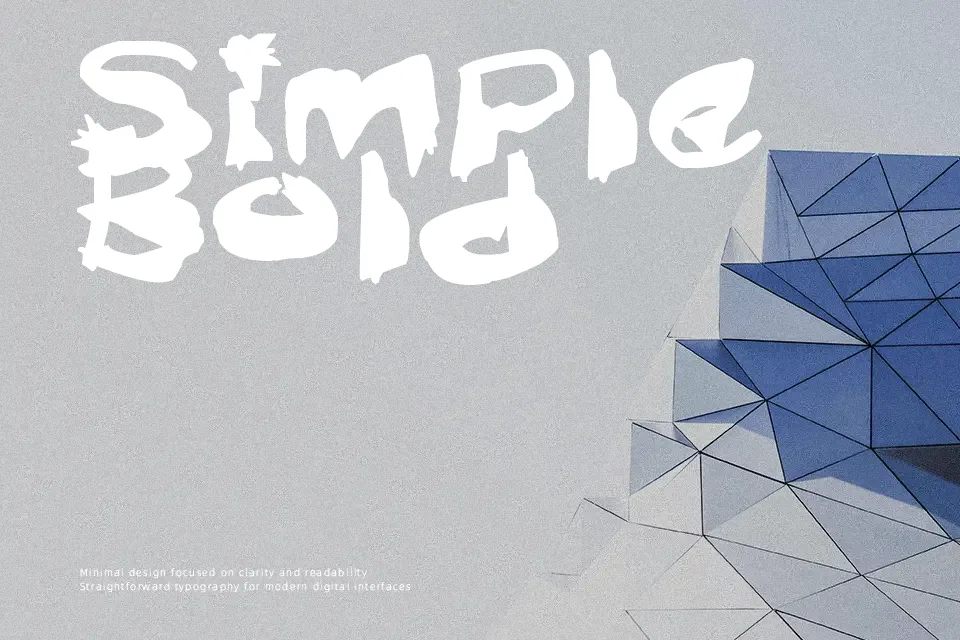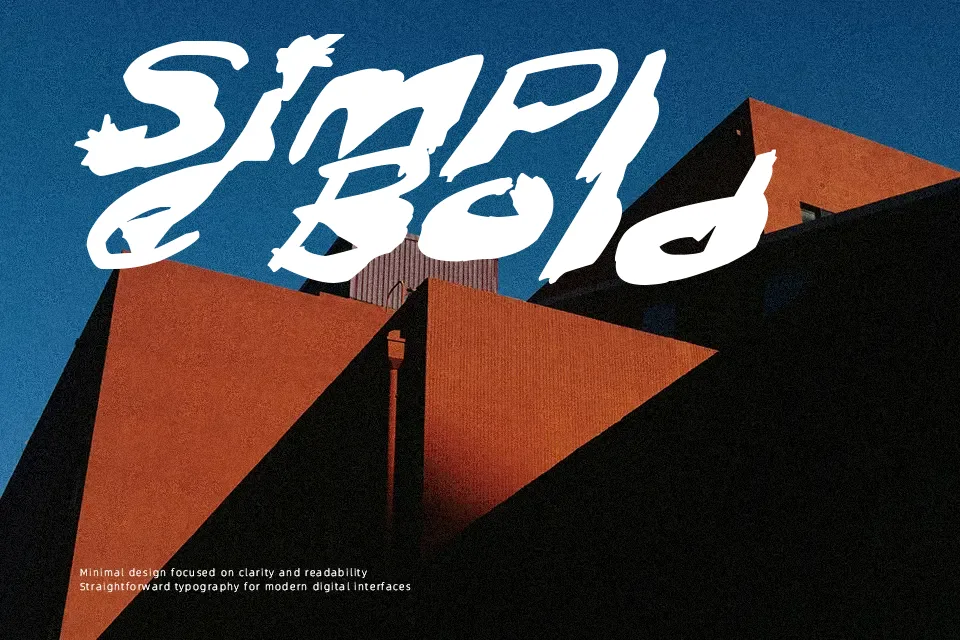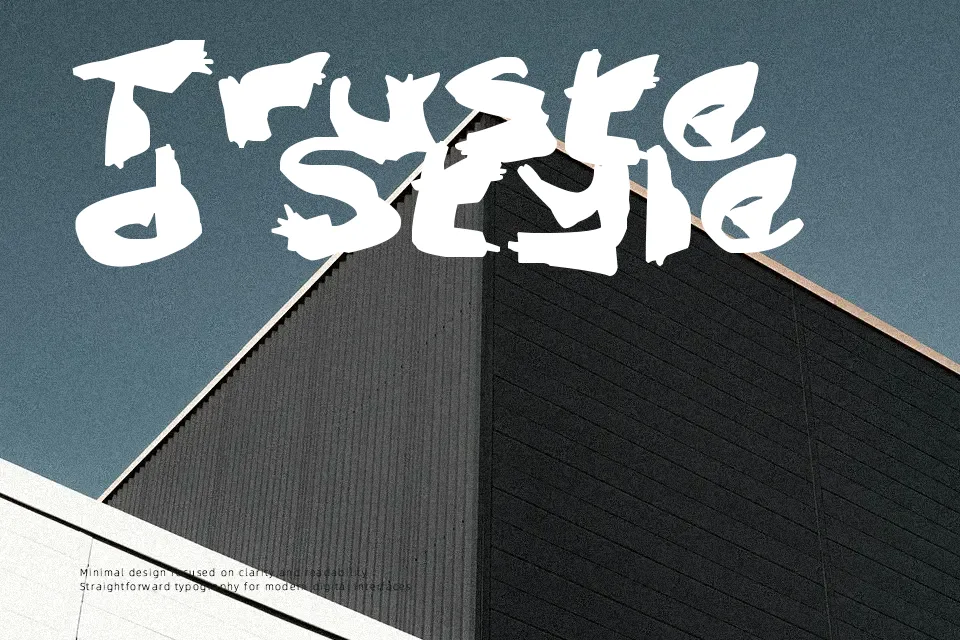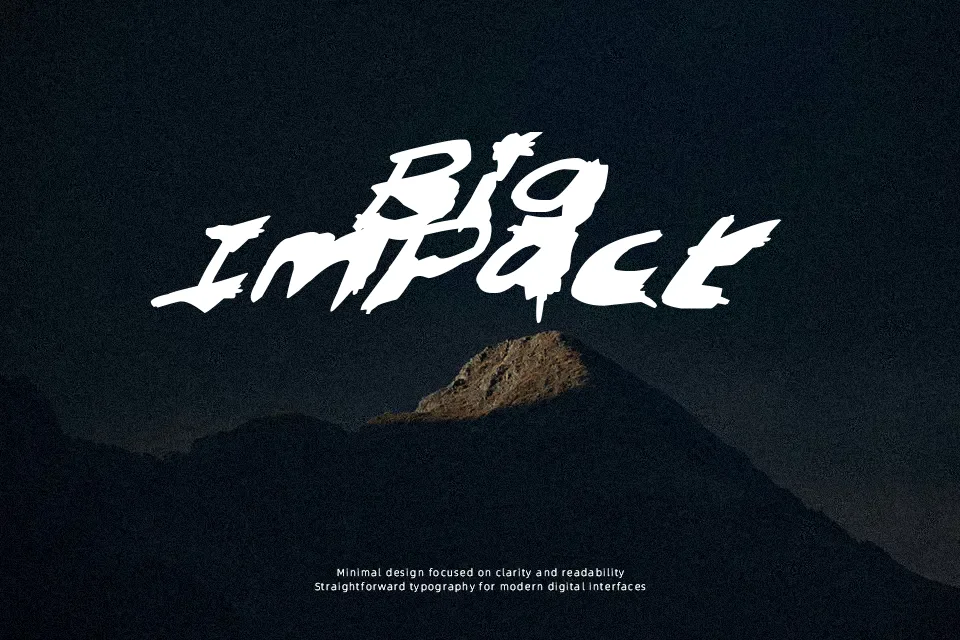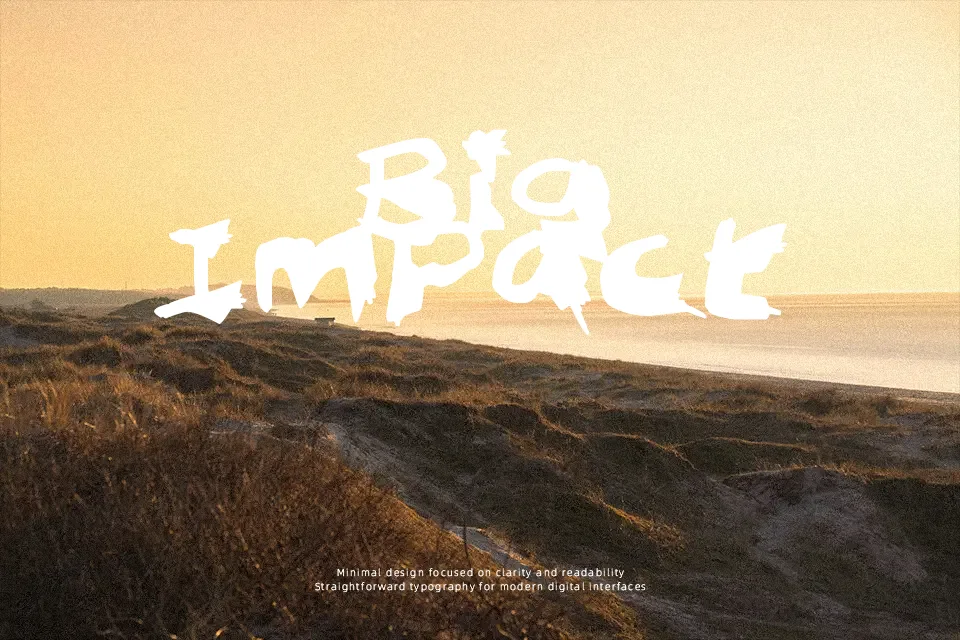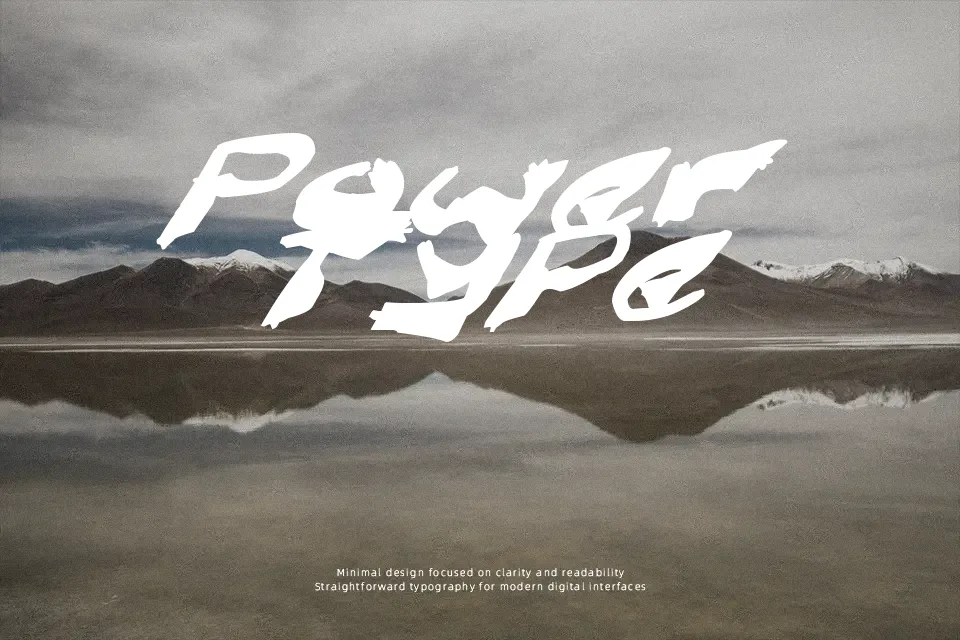
Nightmare Ink Font
Nightmare Ink Font commands immediate attention through irregular, distressed letterforms that evoke hurried scratches made with a worn nib. Heavy, uneven ink distribution creates strong visual contrast across individual glyphs, while organic terminals and jagged edges give the overall texture an unpolished, visceral quality. Spacing remains relatively tight to maintain punchy momentum across short headlines and display titles. However, the abrasive texture and inconsistent character density severely reduce legibility in continuous text blocks. The typeface excels when isolated in large-scale horror posters, dramatic book covers, or themed merchandise, though dense editorial environments quickly break down into visual noise.
Best For: horror movie title sequences, Halloween event flyers, heavy metal album covers, haunted attraction signage
Not Ideal For: long paragraph text, corporate reports, mobile app interface labels, dense editorial layouts
Perfect for film, halloween, and headline, with a dark and decorative style.